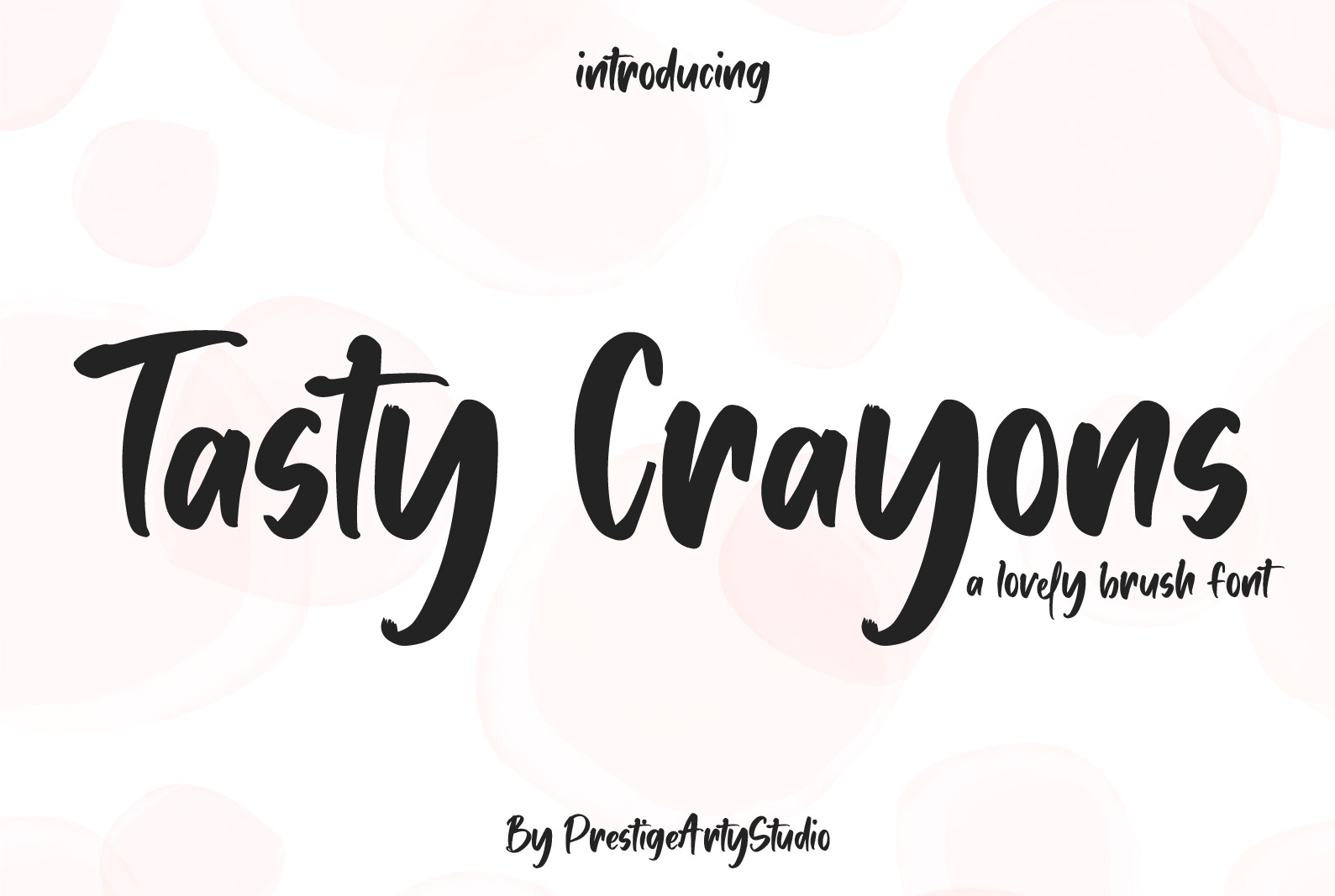
Tasty Crayons A Lovely Brush Font
Introducing Tasty Crayons a Brush font designed with love and attention to detail, this font is a perfect blend of boldness and cuteness that will bring a delightful charm to your designs.
With its natural hand-drawn brush strokes, this font adds a touch of playfulness and whimsy to any project. The bold and thick letterforms make a strong statement, while the cute and rounded edges give it a friendly and approachable feel. It's a font that strikes the perfect balance of being attention-grabbing yet adorable.
Experience the joy of working with a font that brings out the best qualities in your designs. With the Bold and Cute Brush Font, you'll capture hearts and captivate audiences with its irresistible allure. Don't miss out on adding this vibrant and charming font to your creative toolbox. Get ready to make your designs bold, cute, and unforgettable!